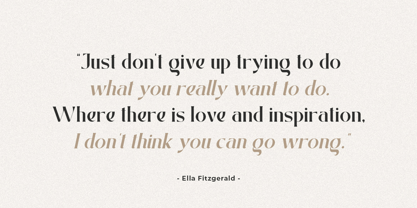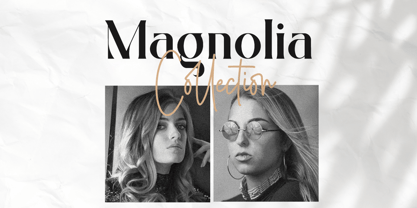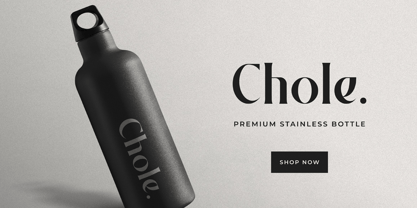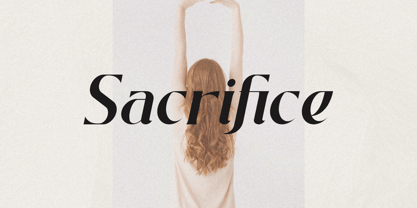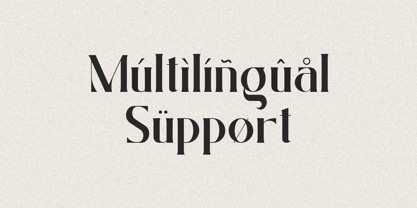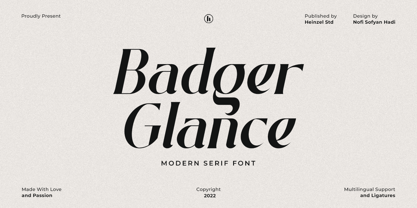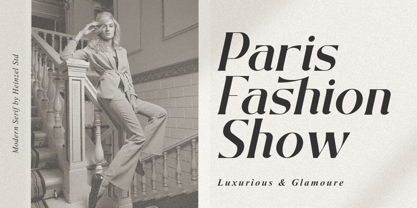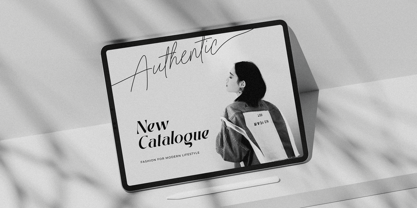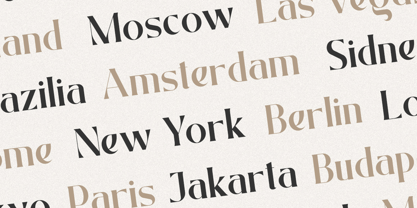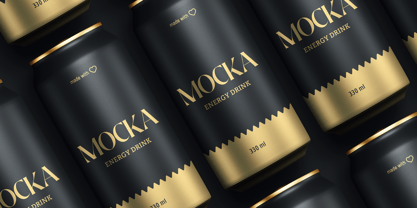
Badger Glance
by Heinzel Std
The Badger Glance Font Family was designed by Nofi Sofyan Hadi and published by Heinzel Std. Badger Glance contains 2 styles and family package options. More about this family
Badger Glance is a modern serif font that blends timeless elegance with contemporary design. Featuring refined curves, stylish ligatures, and balanced letterforms, this font is perfect for branding, editorial layouts, logo design, and high-end packaging. Its sophisticated details make it stand out in both digital and print projects, offering a luxurious and professional touch. With multilingual support and smooth readability, Badger Glance is the perfect choice for designers looking to elevate their creative work.
Designers: Nofi Sofyan Hadi
Foundry: Heinzel Std